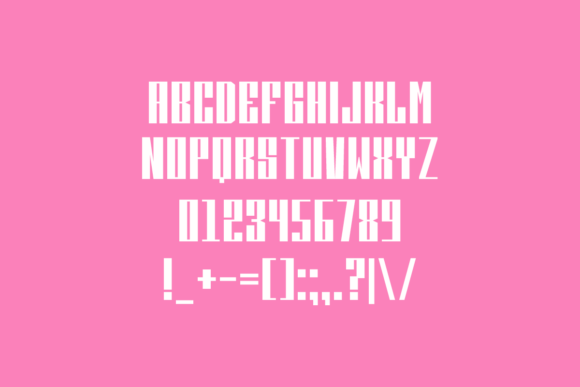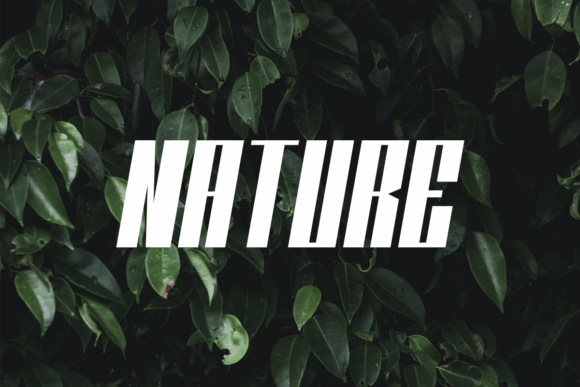
Introduction to Hiraeth Font
Hiraeth is a minimal and clean sans serif font.
It can easily be matched to a huge set of projects, so add it to your creative ideas and notice how it makes them stand out .
Key Features of Hiraeth Font
Why Choose Hiraeth Font?
Hiraeth Font offers exceptional quality and versatility, making it a valuable addition to your design toolkit. Whether you’re creating for personal projects or commercial use, Hiraeth Font delivers professional results.